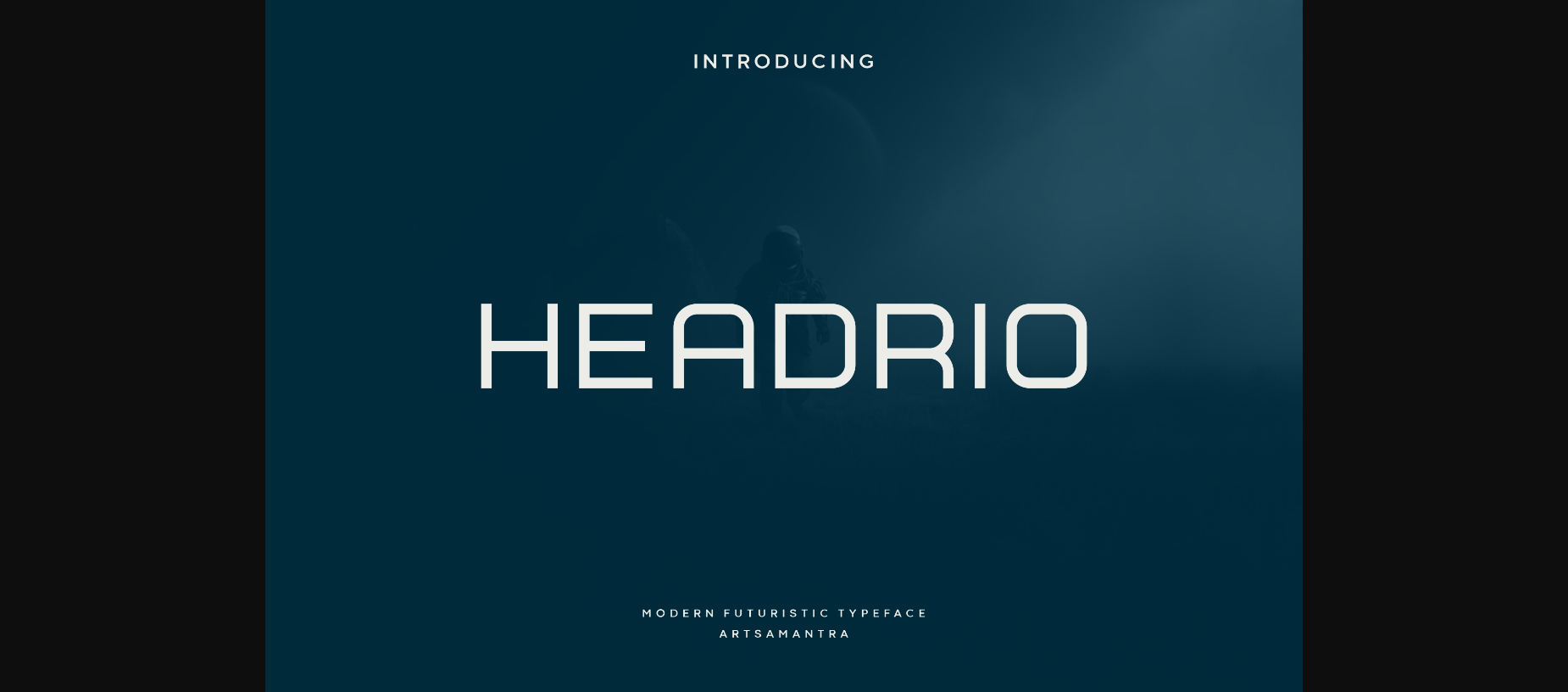
About Headrio Font
Headrio is a fancy all-caps font that will make your designs look futuristic and modern, bringing a simple design to a clean and elegant look. This font is great for logo design, posters, magazines, headlines, and many other designs. Headrio is so sophisticated and modern that it will make your designs stand out!